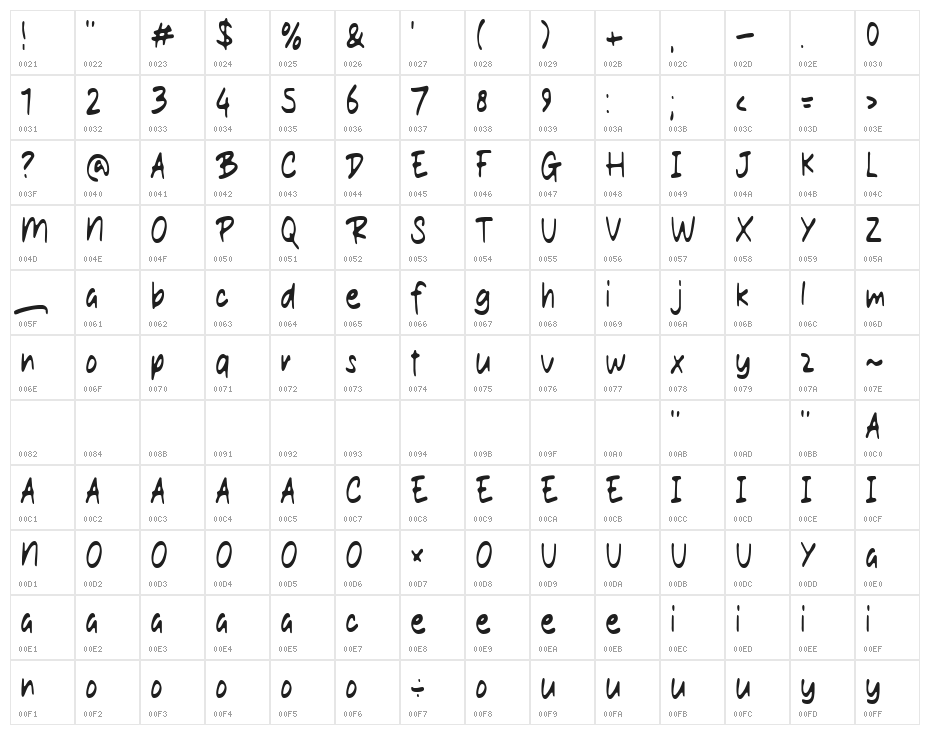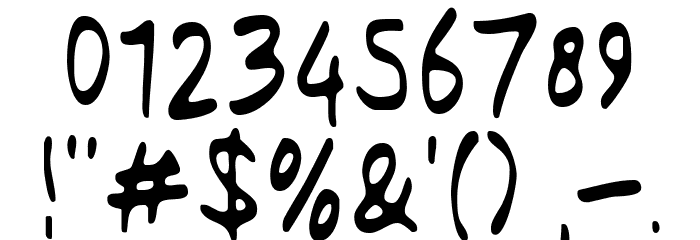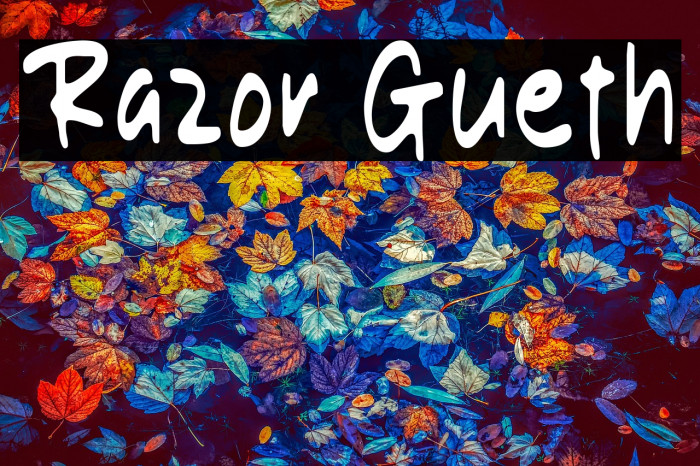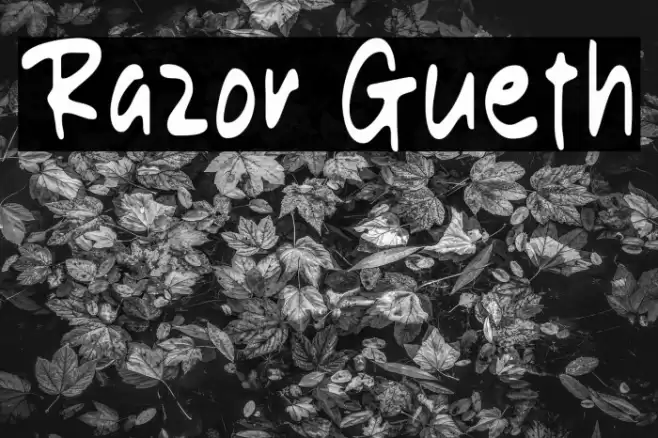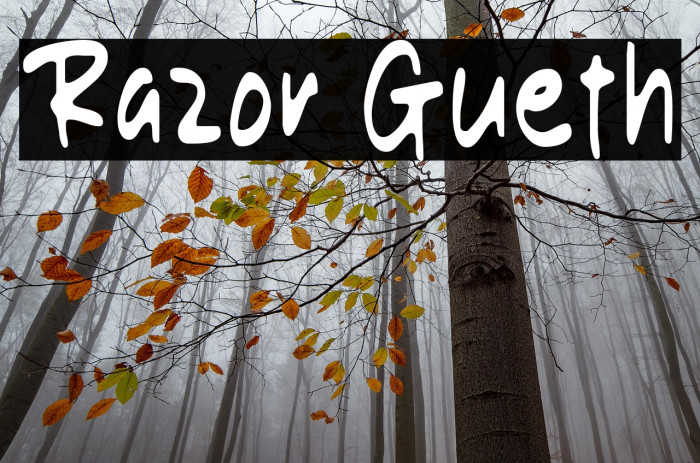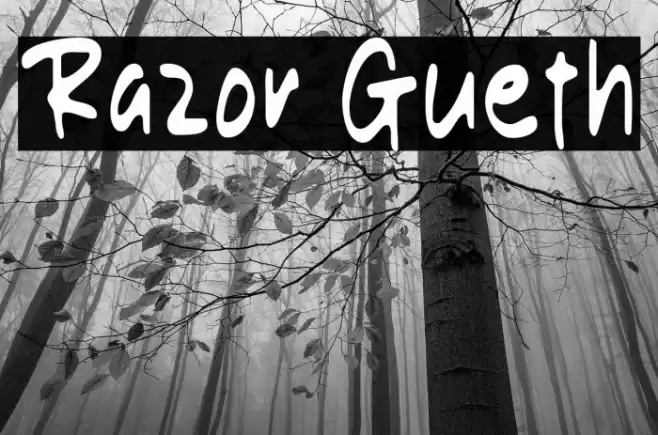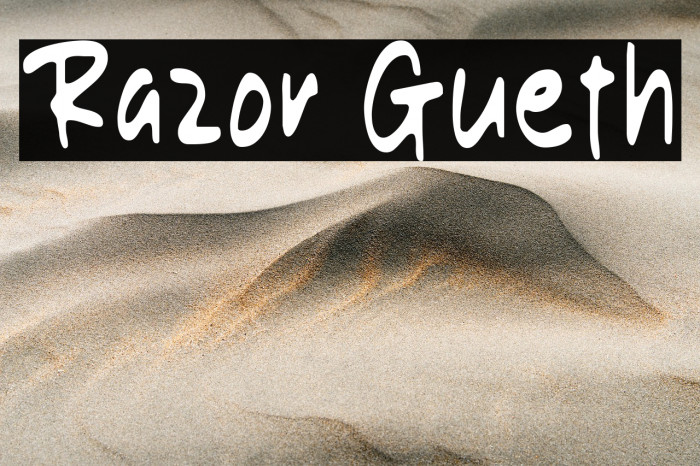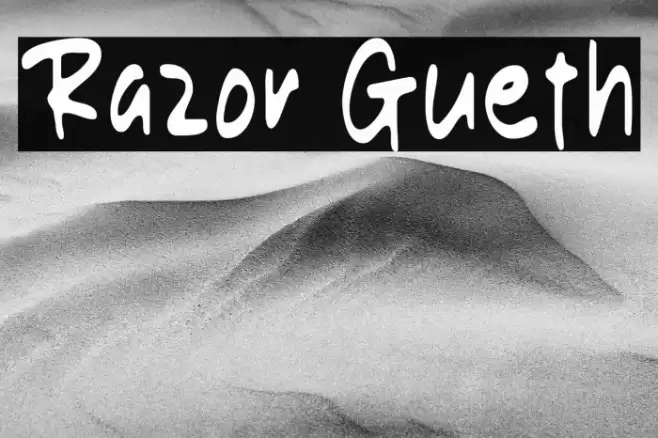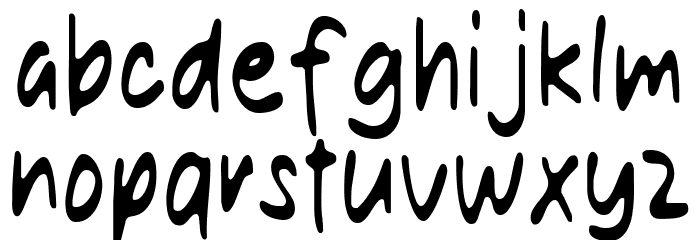
Razor Gueth Font
| Gesamtstil | Casual, Playful |
| Anwendungsfall | Headlines, Informal text, Creative projects |
| Vorgeschlagene Projekte | Ideal for greeting cards, children's books, casual branding, and social media graphics. |